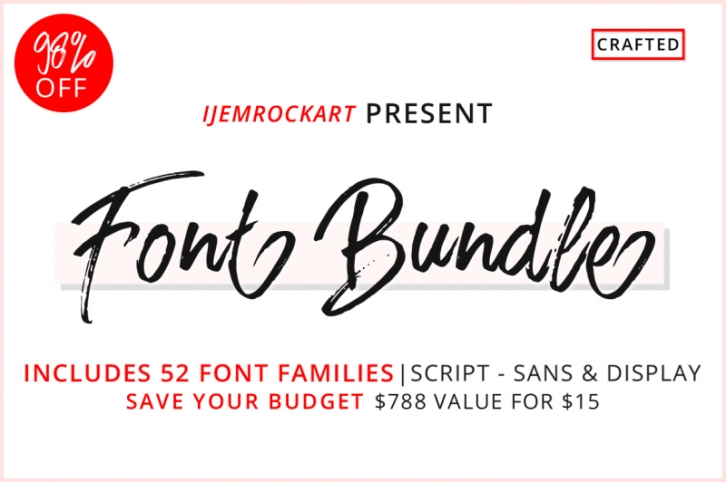
This is your chance to get all my fonts at a super low price for $15! Includes 63 Fonts in 42 typefaces . This bundle includes a varied range of font styles such as, calligraphy, signature, brush lettering, hand lettering and more. with hundreds of glyphs, including alternates, ligatures, swashes, and international language support.
Typefaces included:
Rushtard Brush
Charlion Script 2 Style
Raymod Colin Font Duo
Big Blue - Type Trio
Scarlett Font Family
Raquella 4 Font
Jackson Script
Madelon Script
Sameri Brush
Dentra Typeface
ELPIDA THIN
ELPIDA OUTLINE
ELPIDA LIGHT
ELPIDA LEAN
ELPIDA VINTAGE
ELPIDA FONT PACKAGE
salita sketch
salita script
Parakota
The Rustic
Badegan Calligraphy
Sinyak Script
Badegan Script
Contento Script
Rumble 4 Font
Behind Script
Marisa Script
Gradies Brush
Husty Brush
insect slab serif
Sunset Script
insects font
Little Stars Brush
ZACKERS Brush
JACKLAND TWO
Turning And Curling
Drast Bold Script
Friends Da Vinci
RAHMAH SANS
Dreams Liem
SUGAR VANILA
CARIBOLD
MOON FIGHTER
Arizona Family
Rockmasta
BERRYBOLD
Marthana Script
Flying Landing
JACKLAND
Kanover
Alleana Script
Love Moment